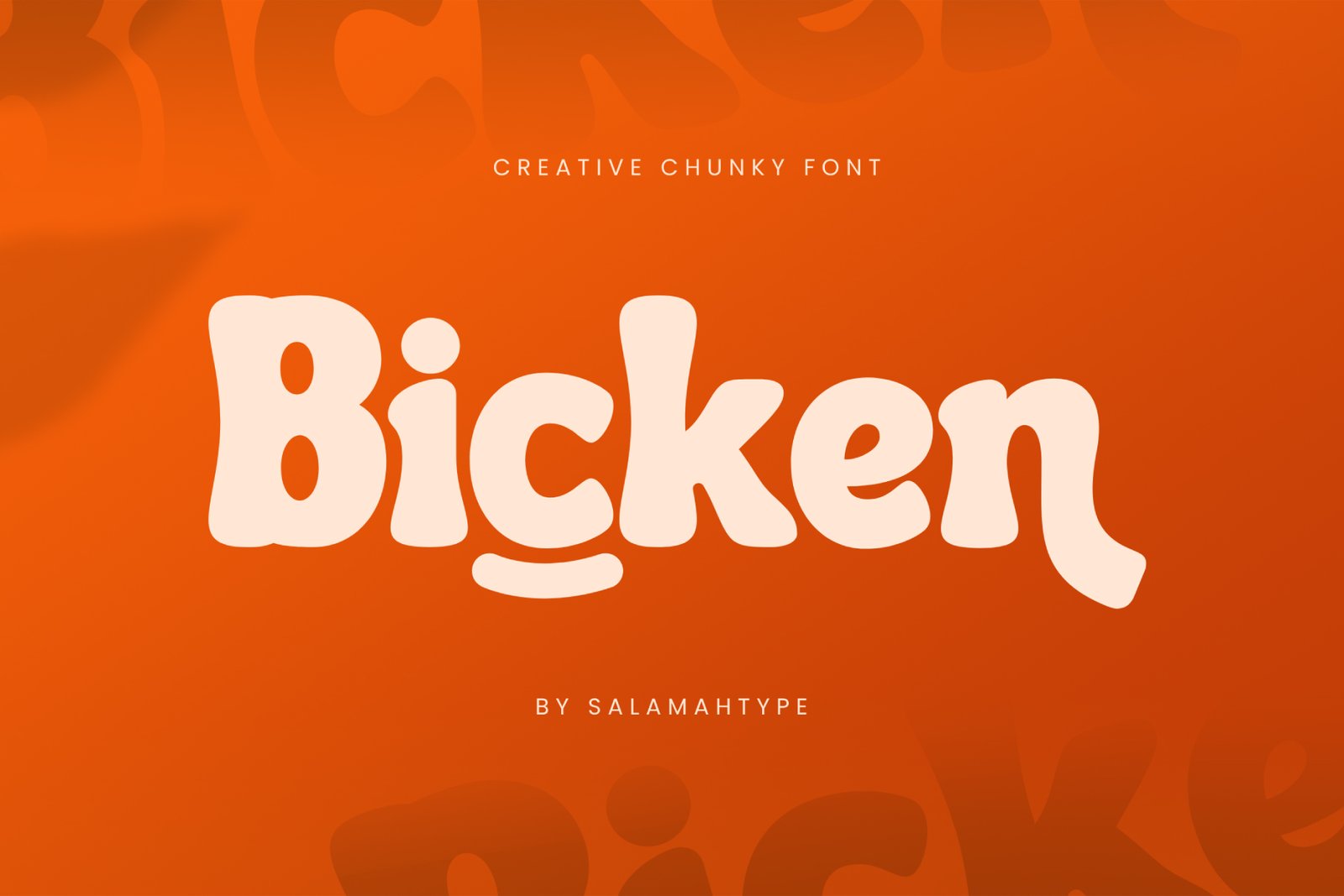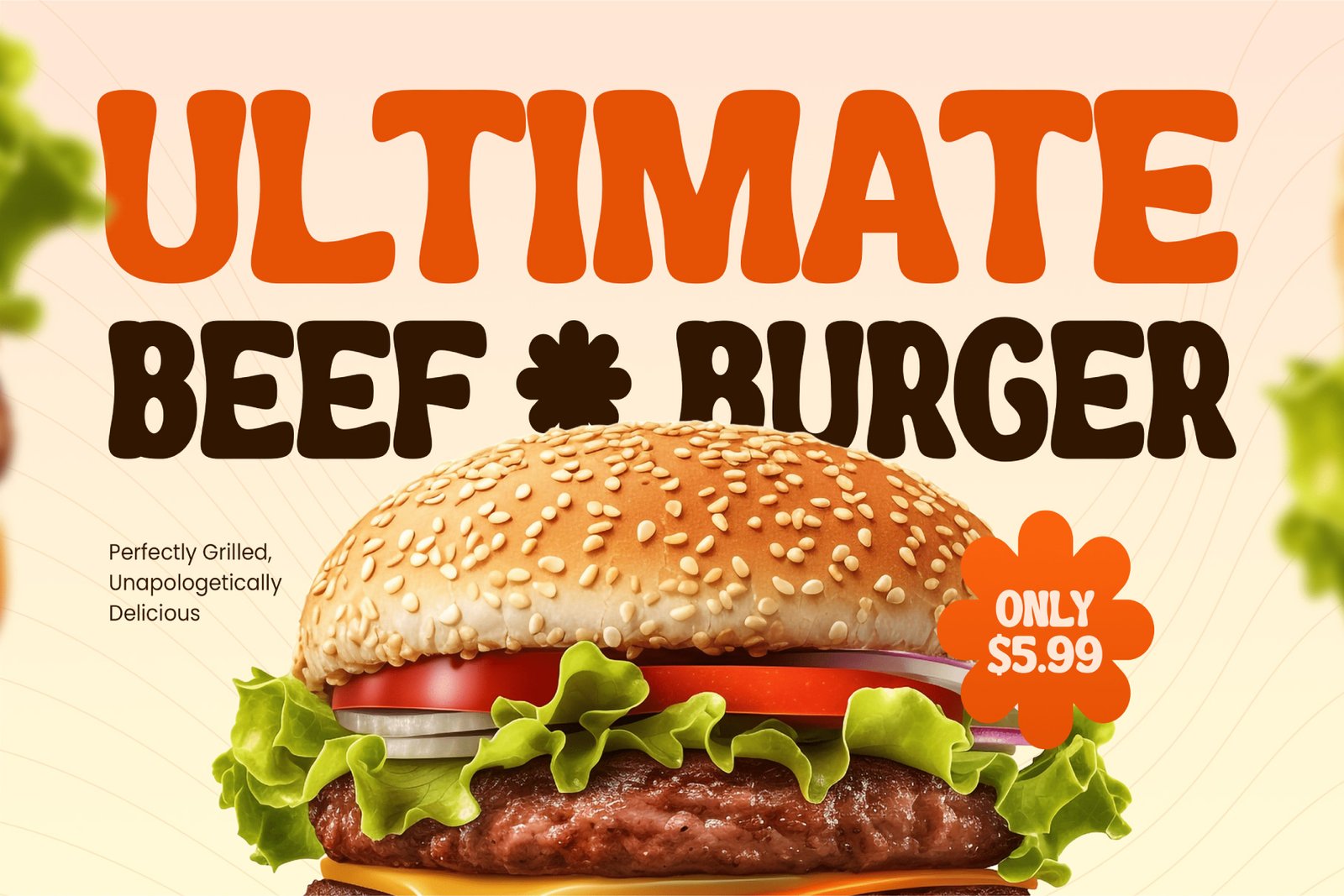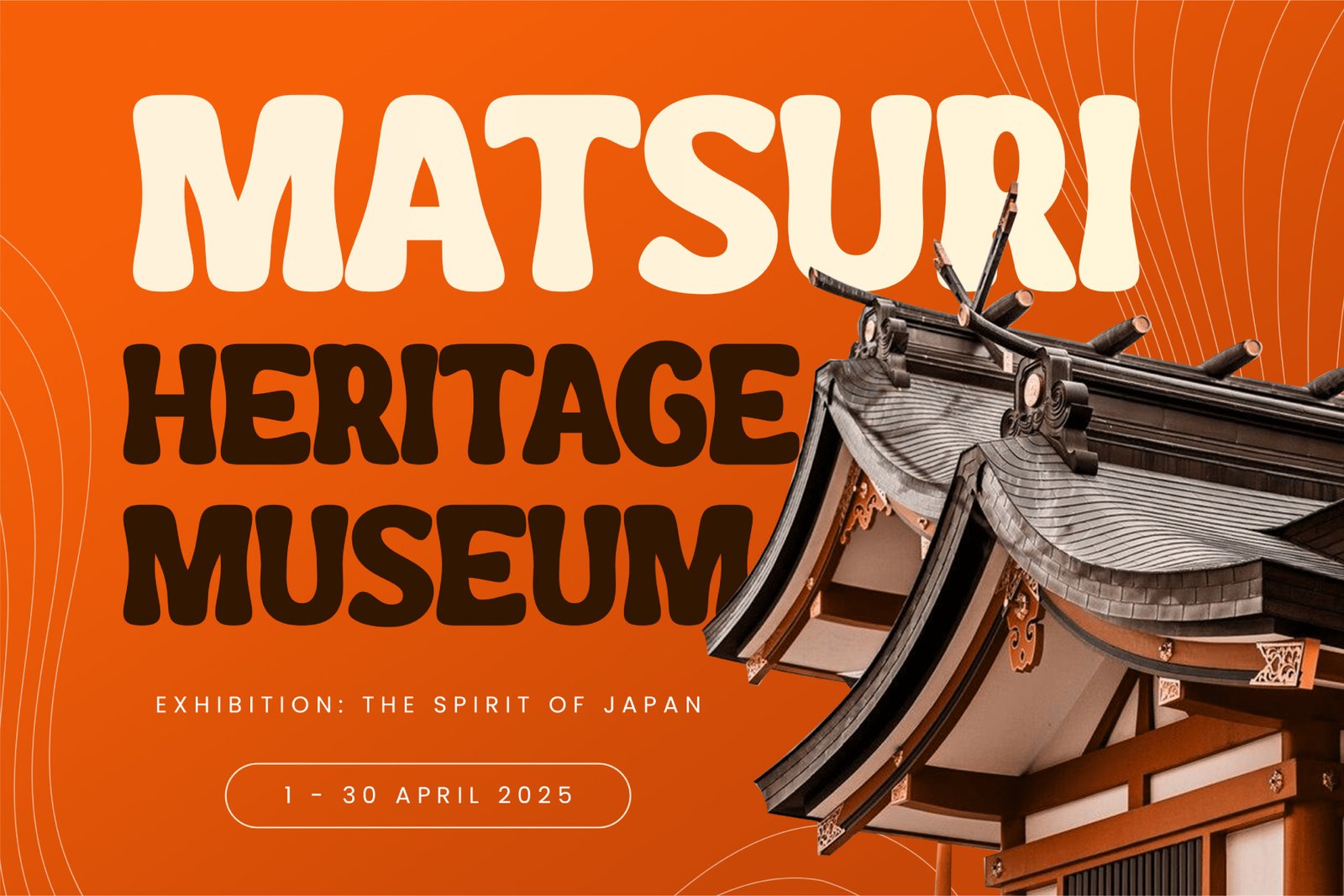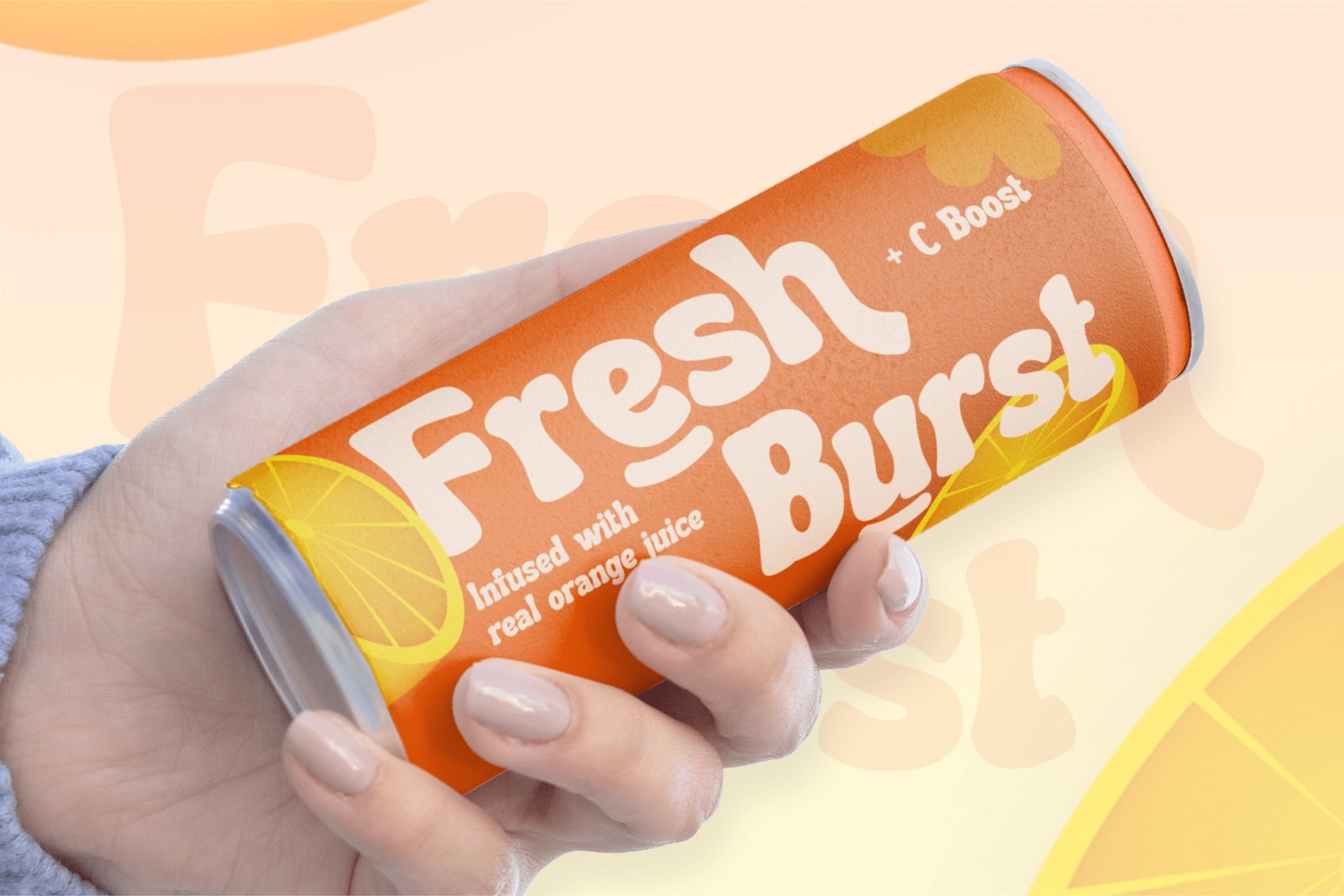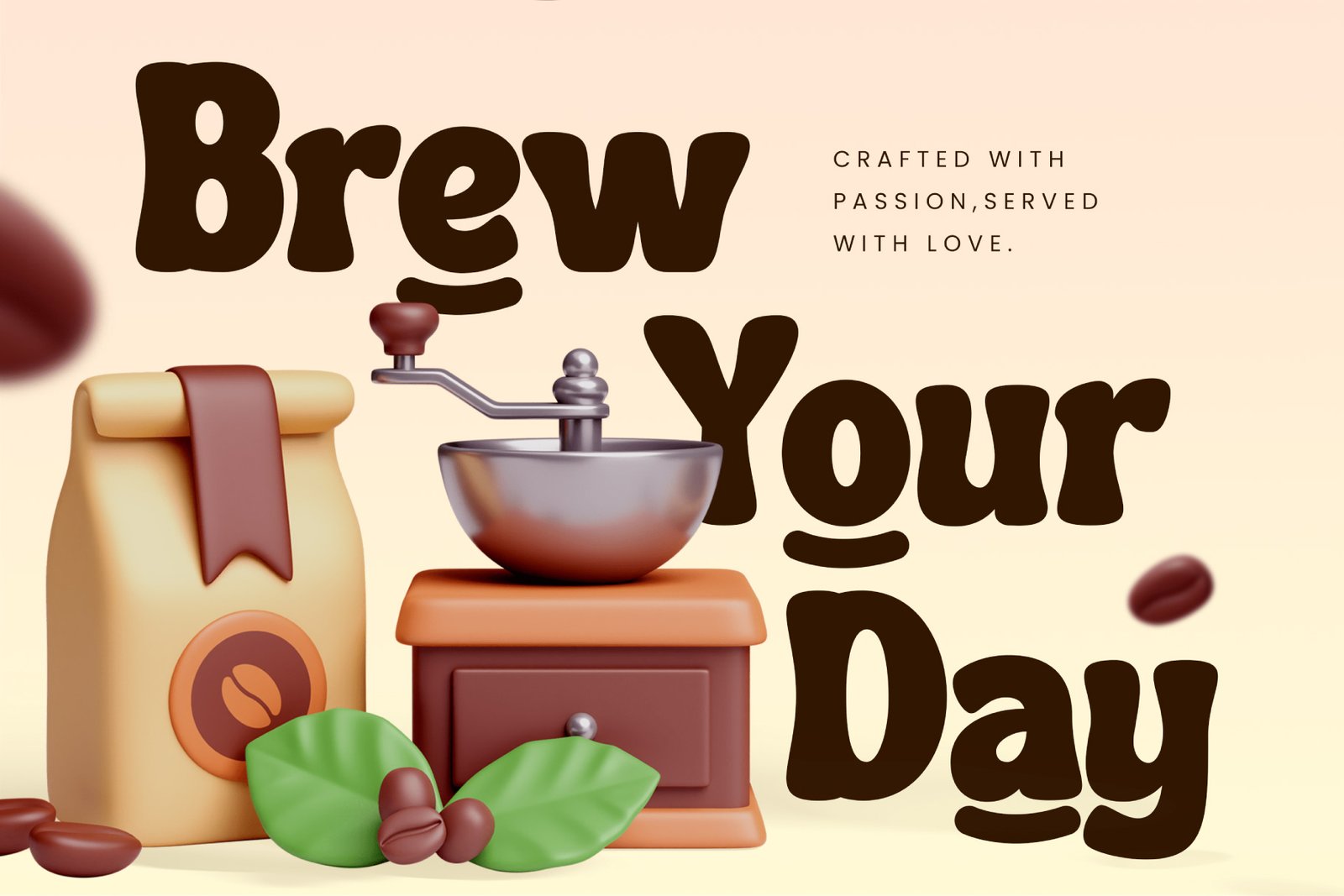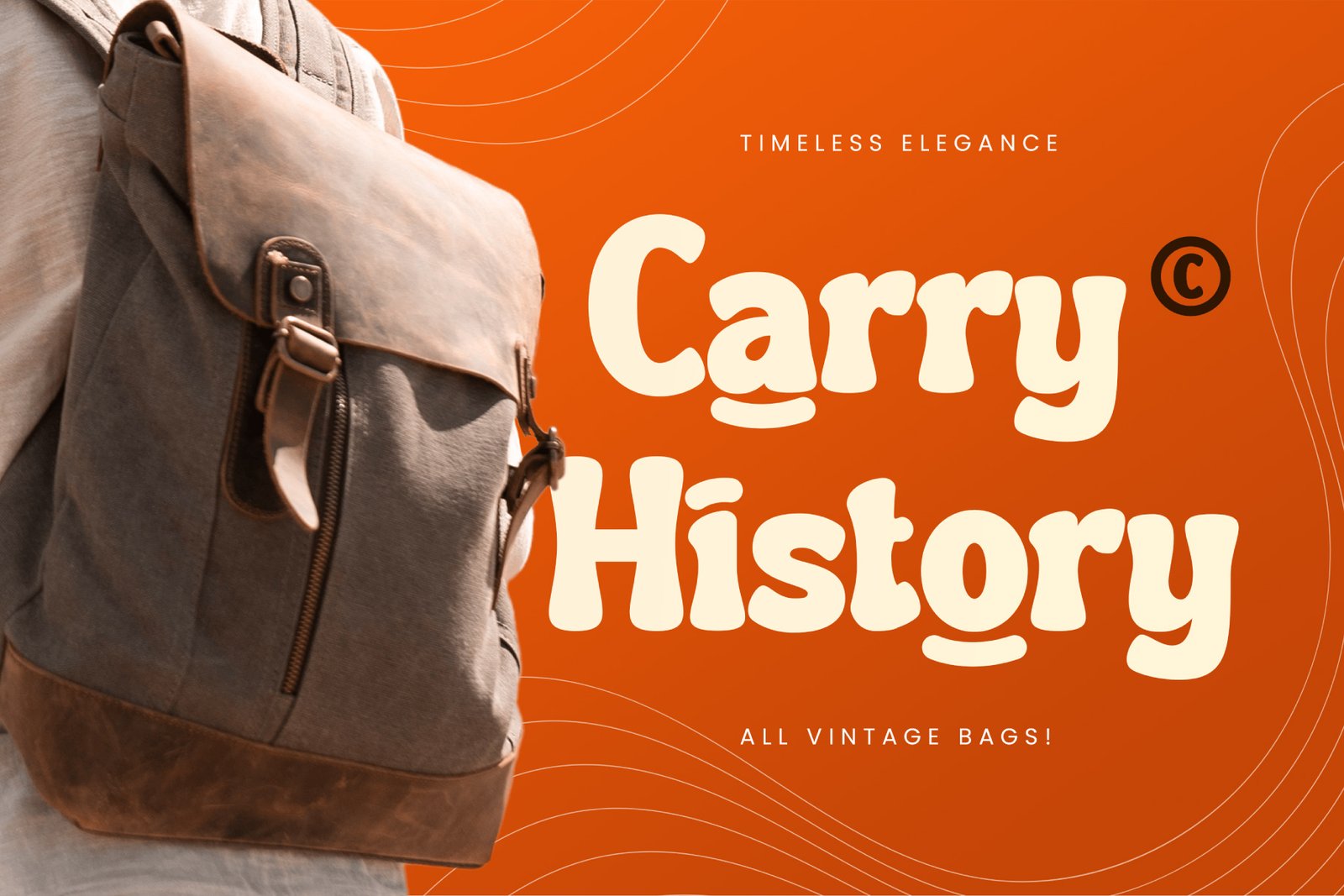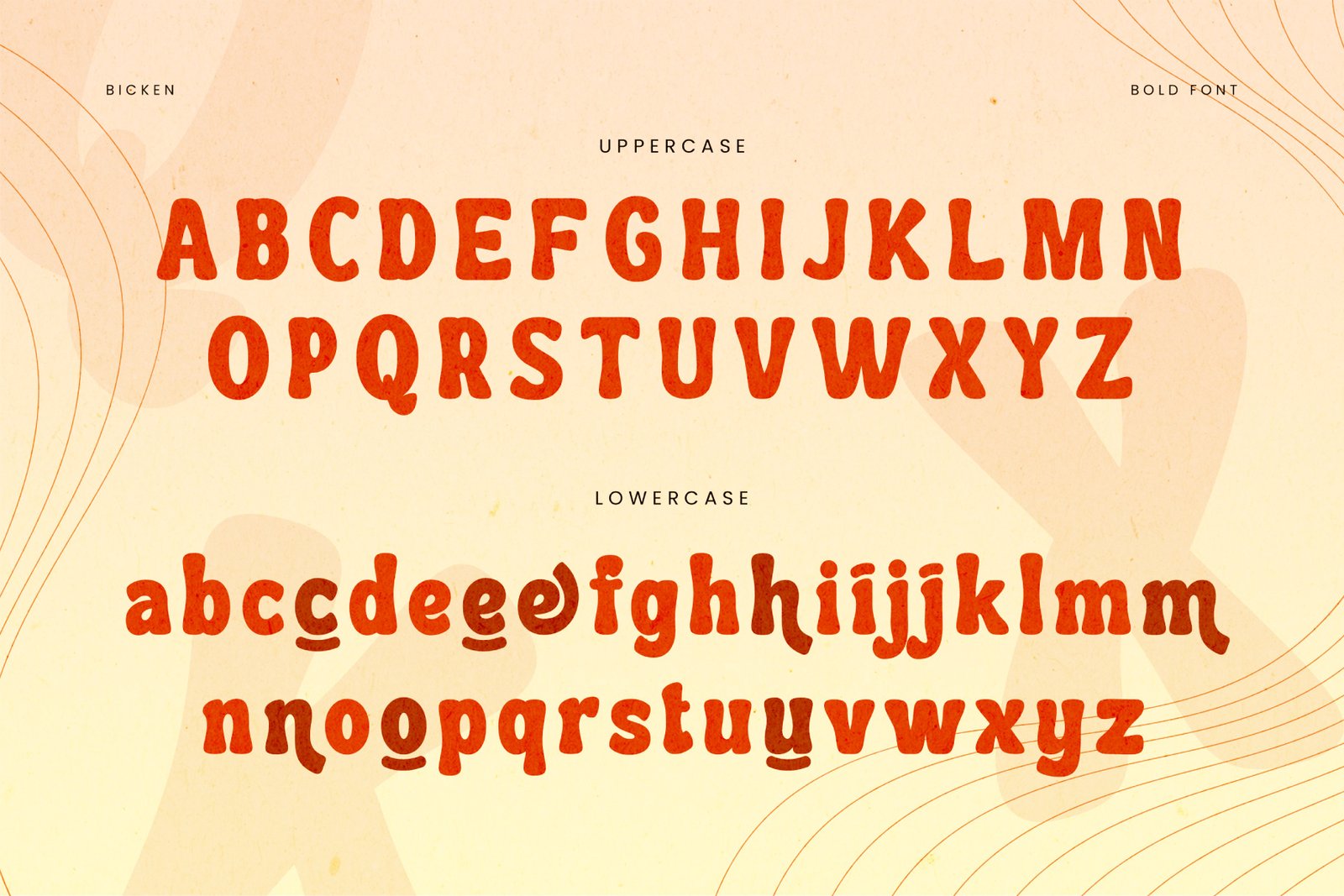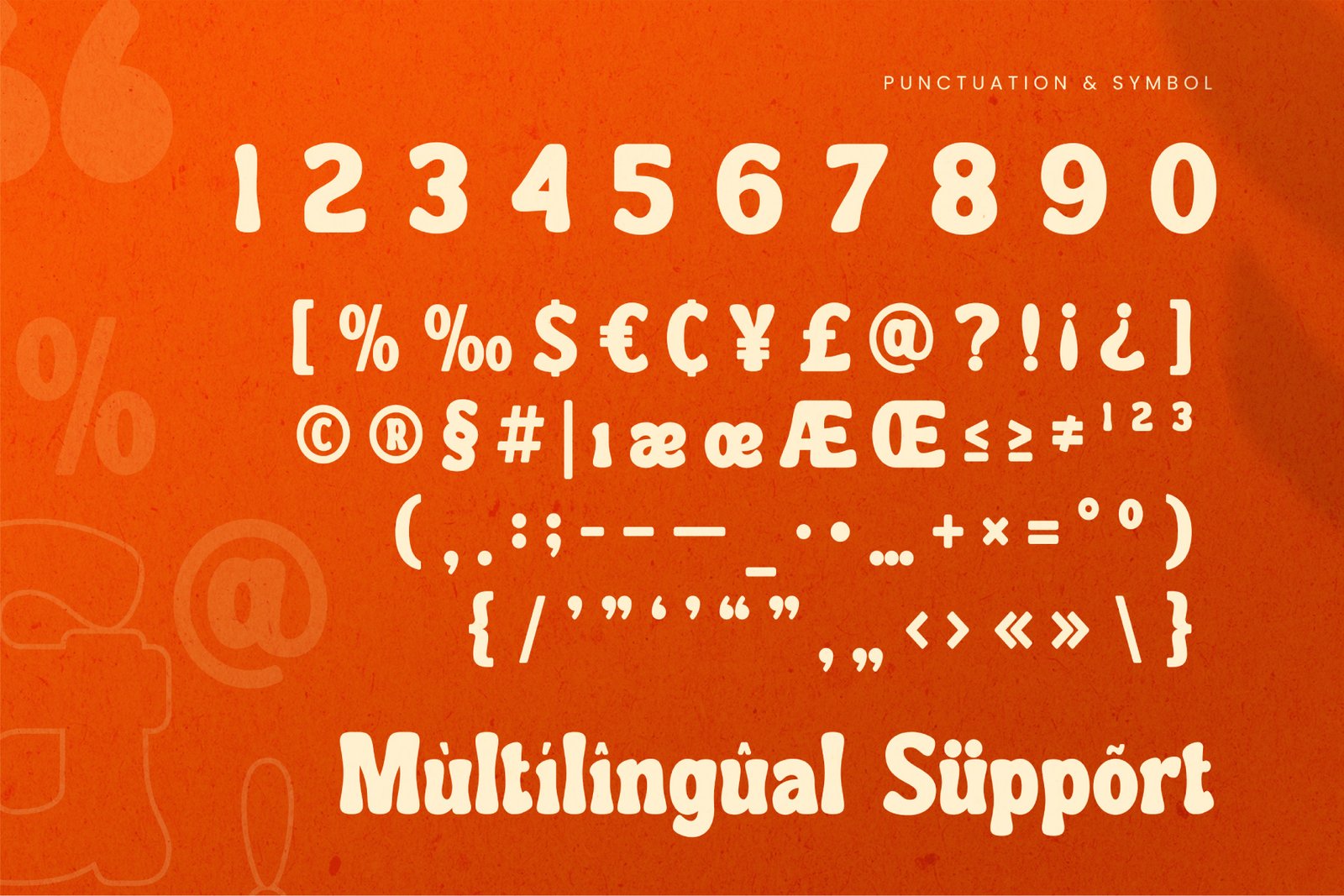
- Bicken – Creative Chunky Font
Bicken
Bicken is a creative chunky serif font with a groovy and playful vibe, perfect for adding bold character to product packaging, logos, banners, branding materials, posters, and more.
– Uppercase and lowercase
– Symbols and punctuation
– Alternates
– Multilingual support